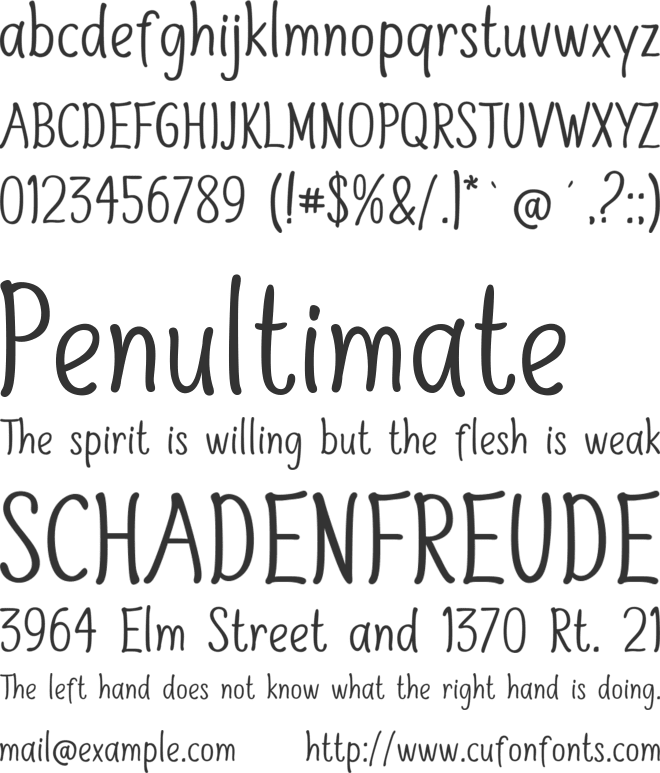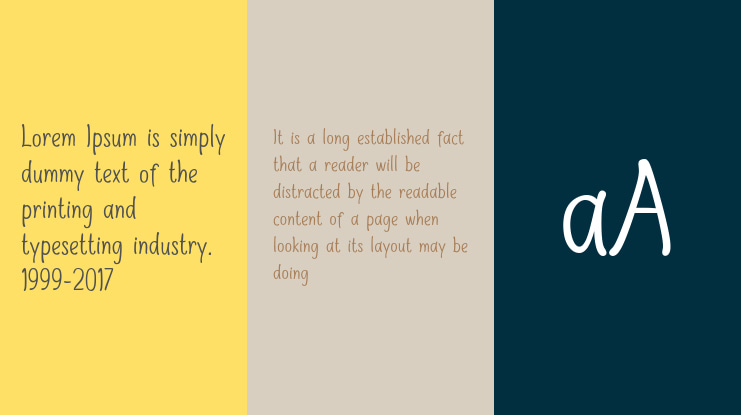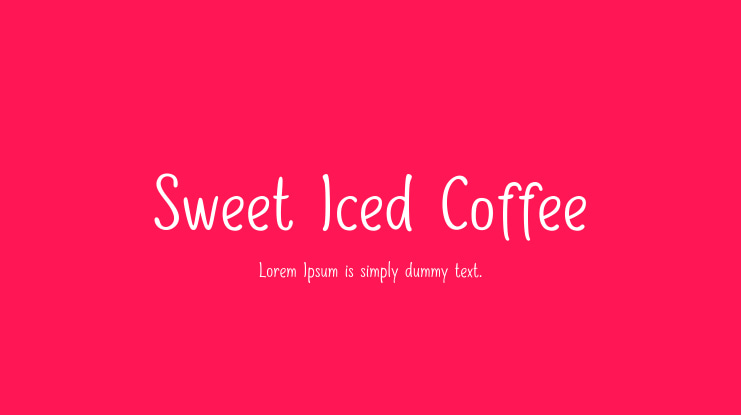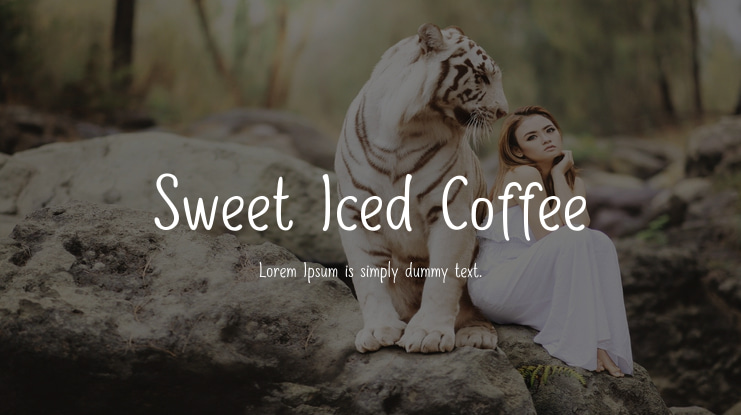
Sweet Iced Coffee Font
Sweet Iced Coffee is a simple and dainty handwritten font. It looks adept on wedding invitations, thank you cards, quotes, greeting cards, logos, business cards and every other design which needs a handwritten touch.